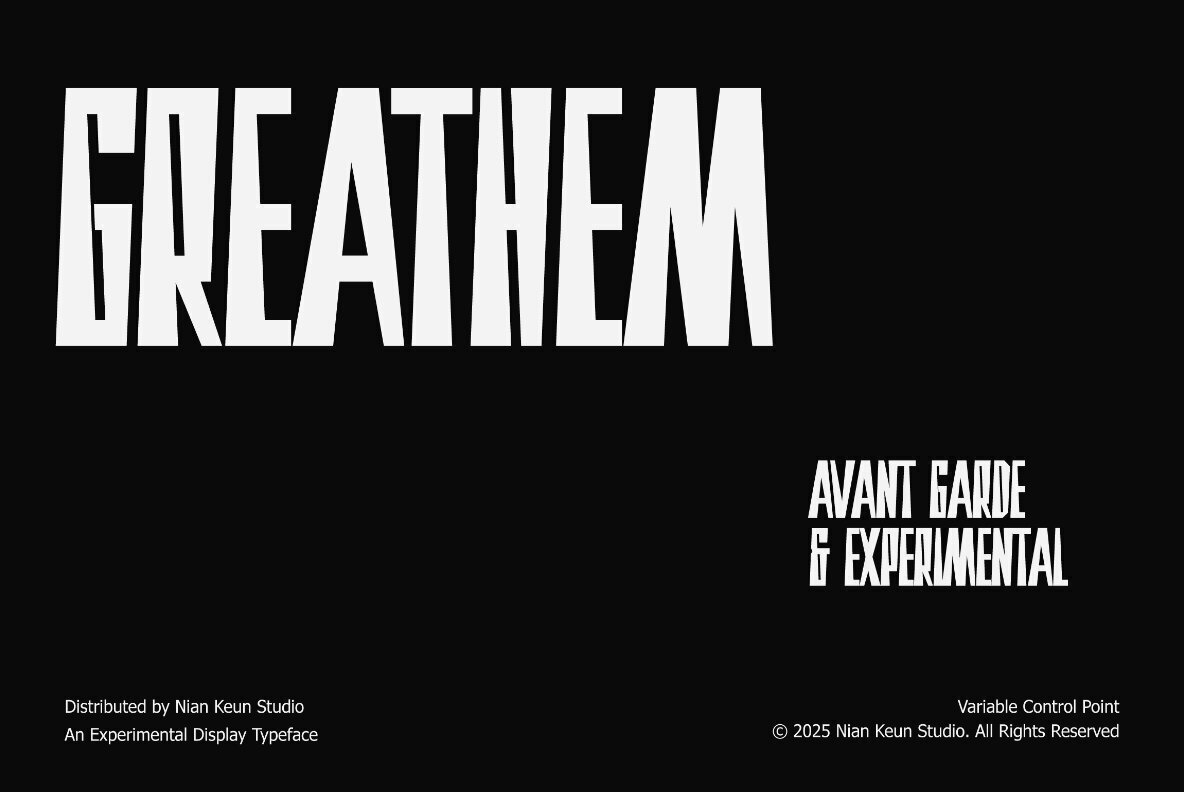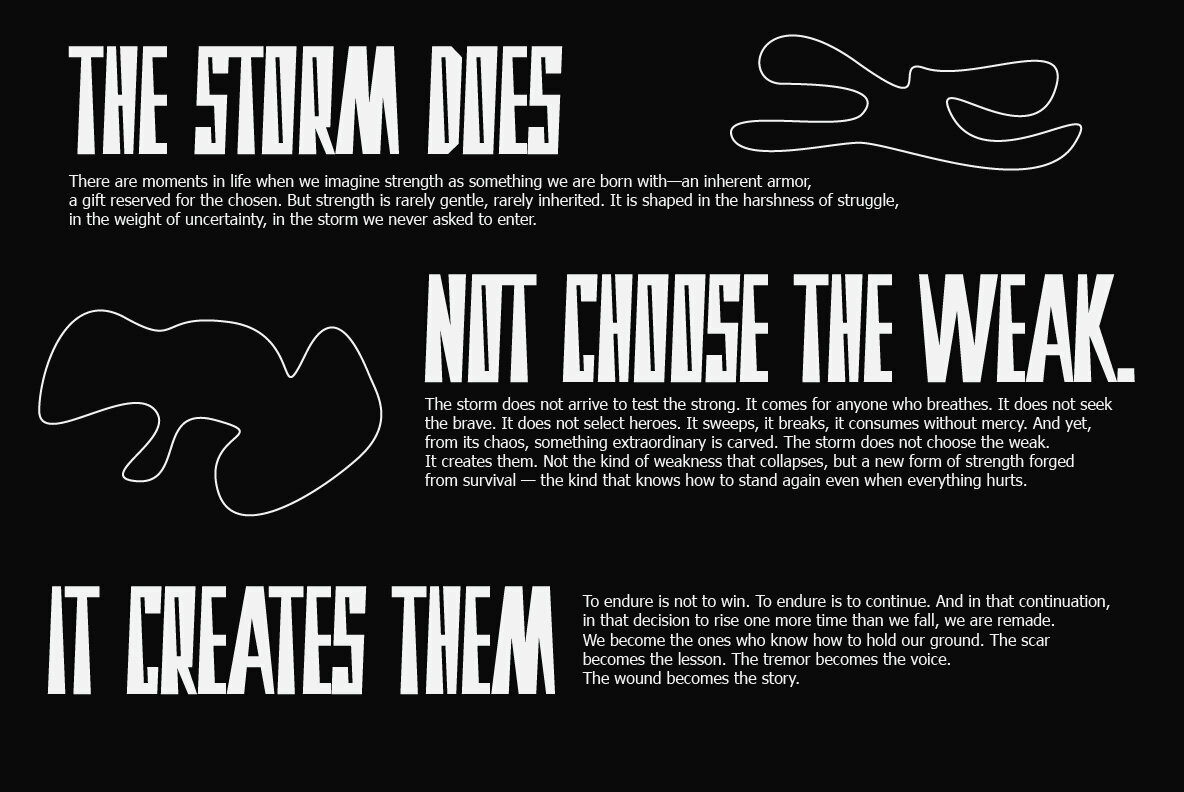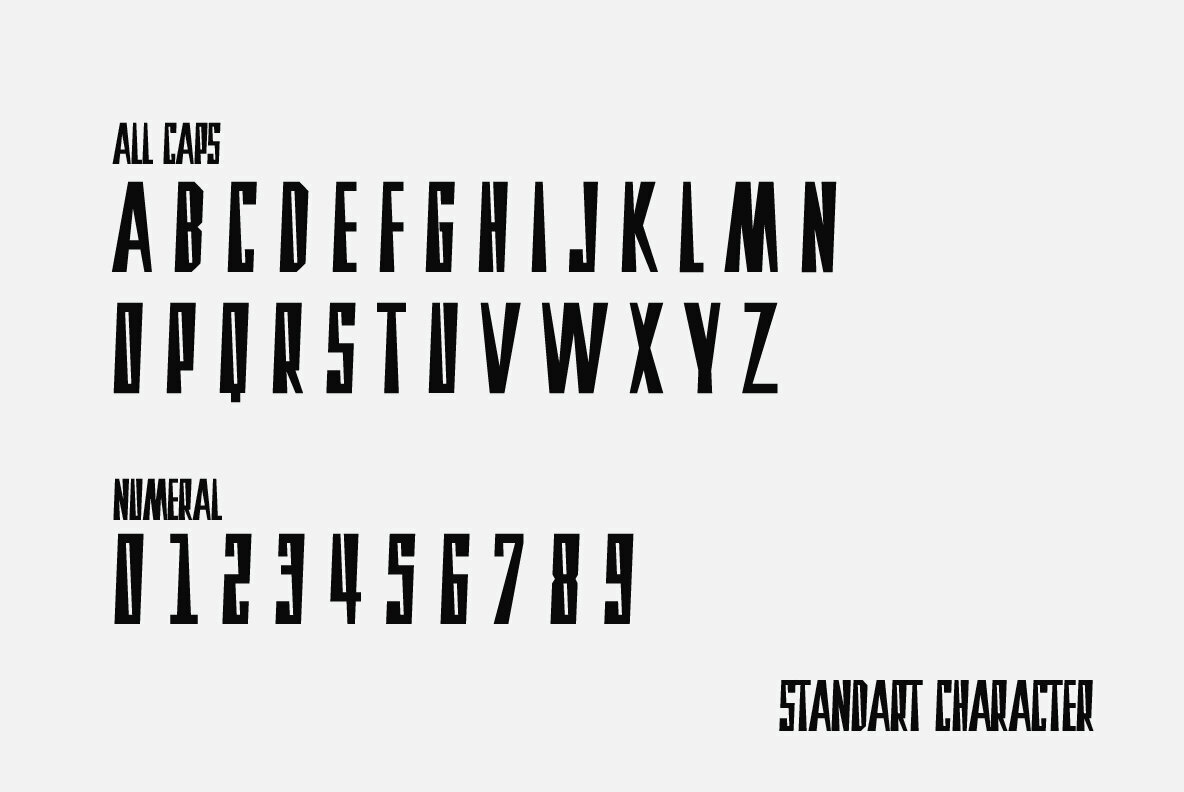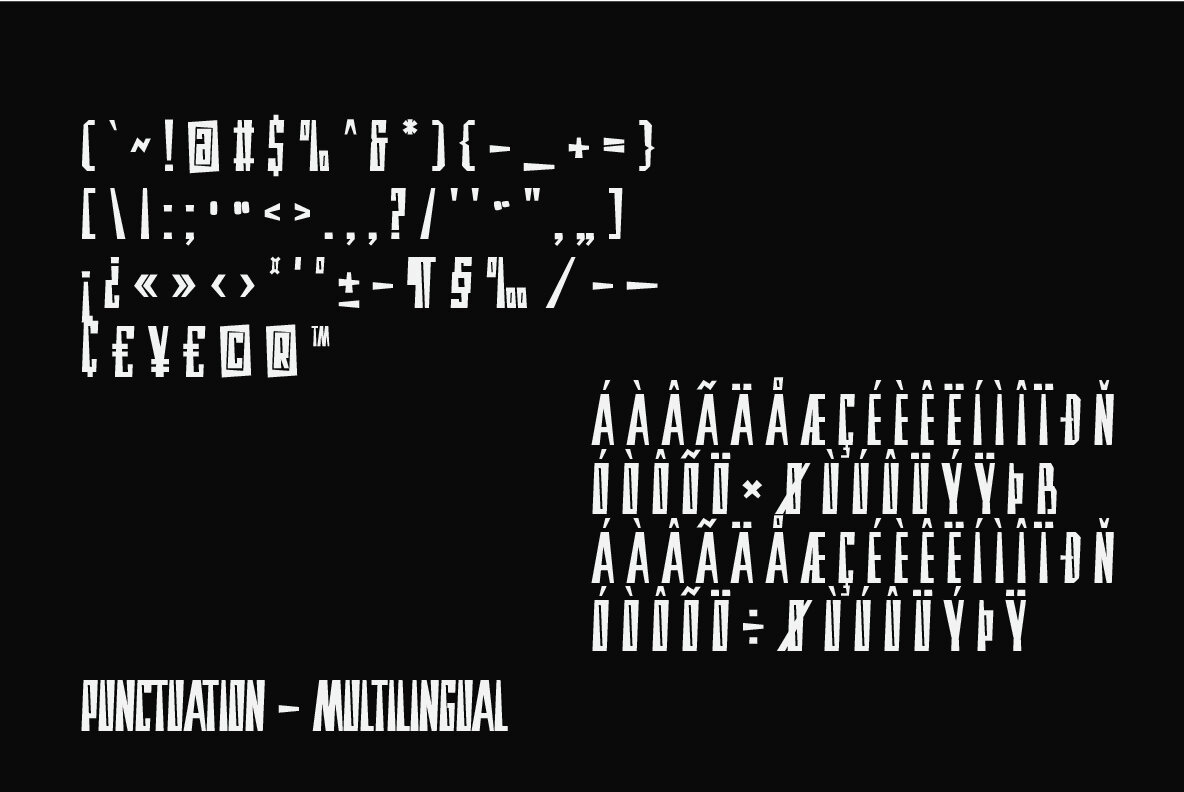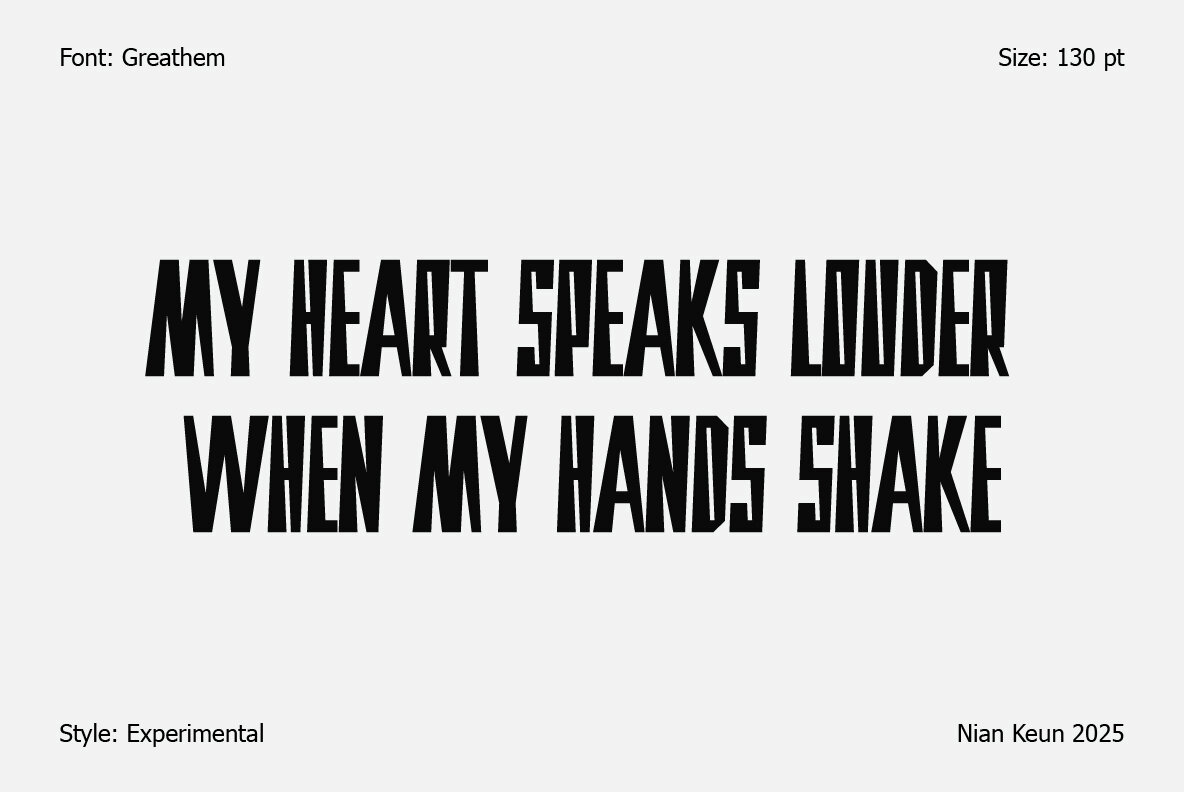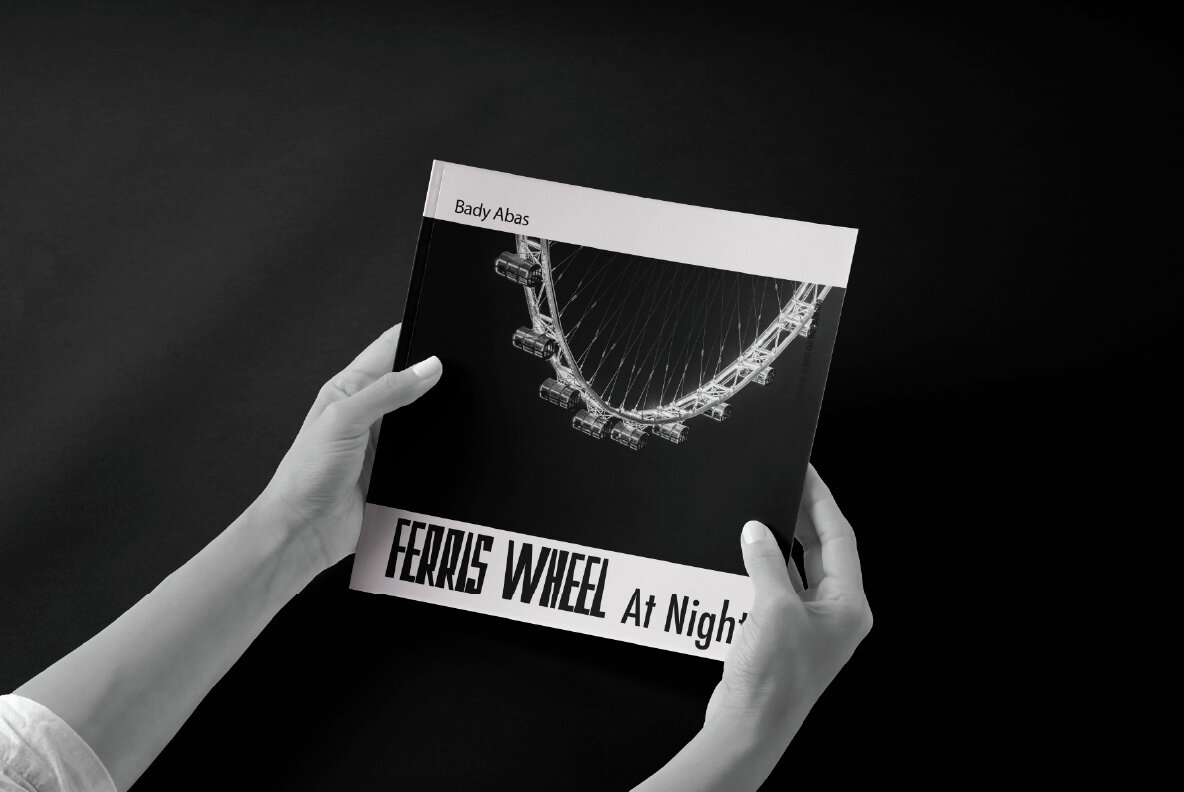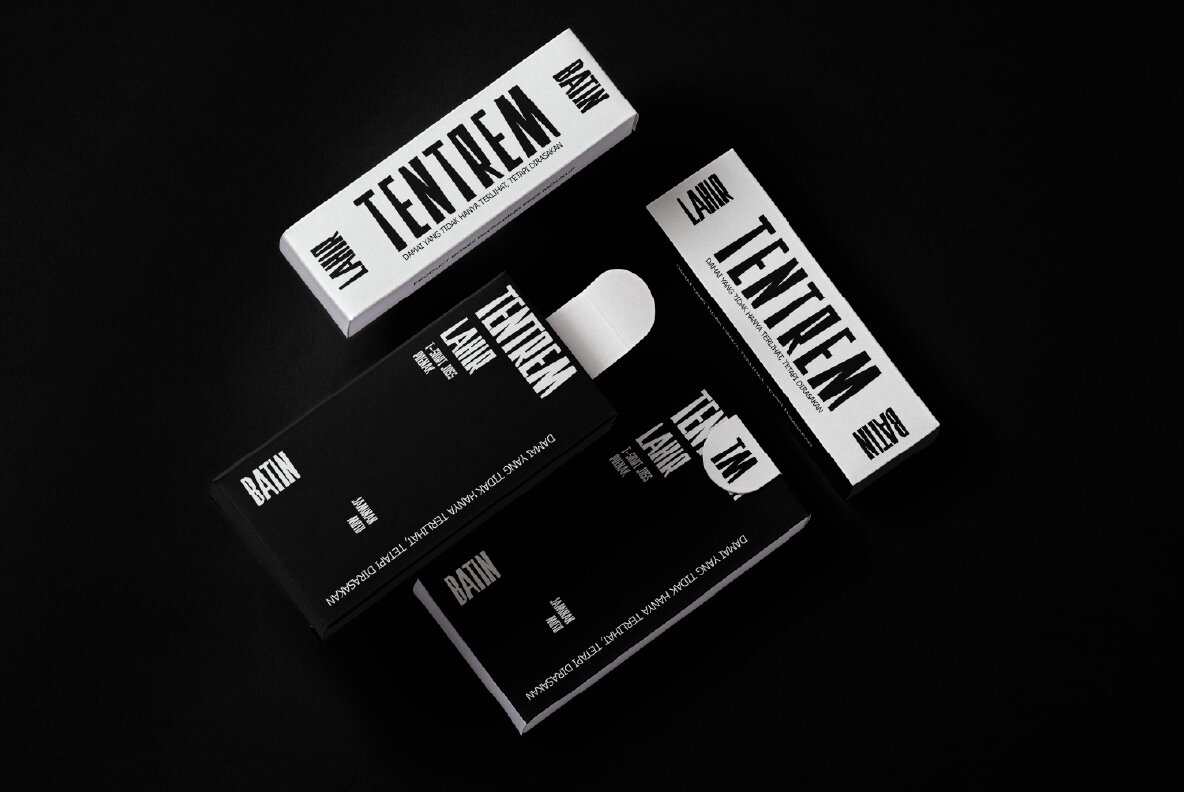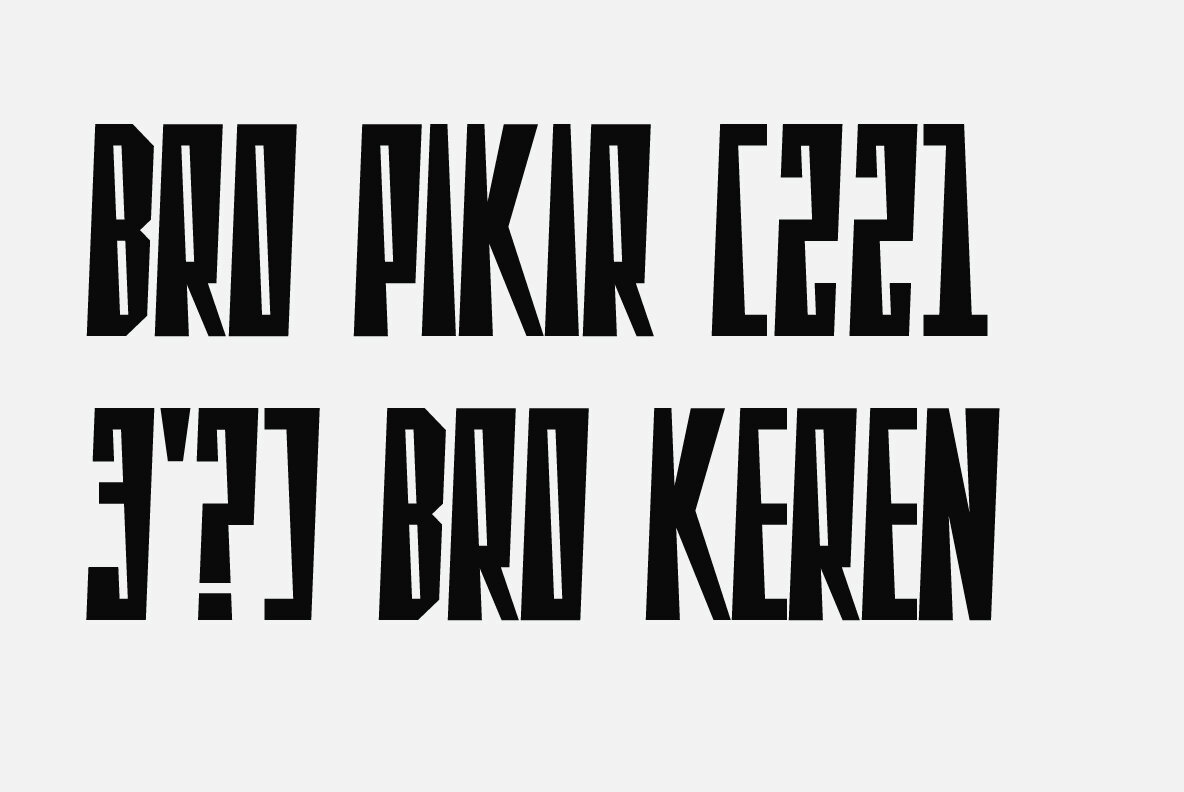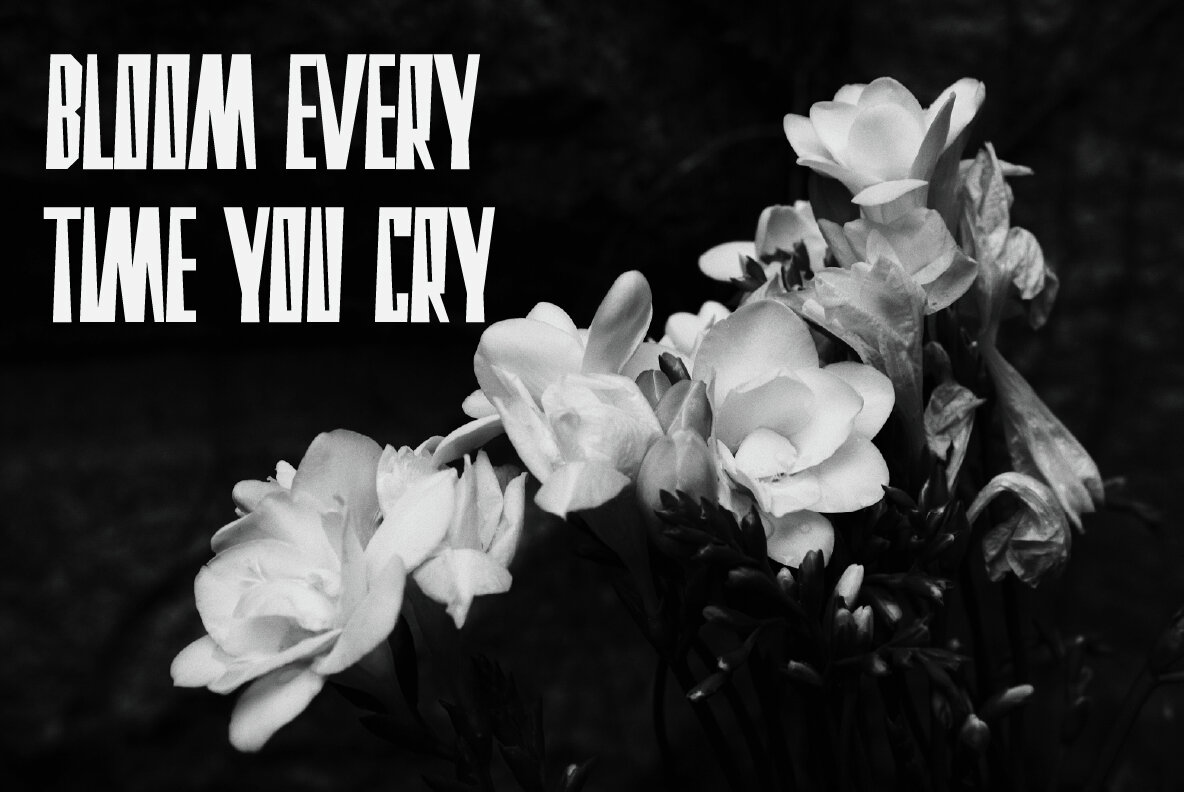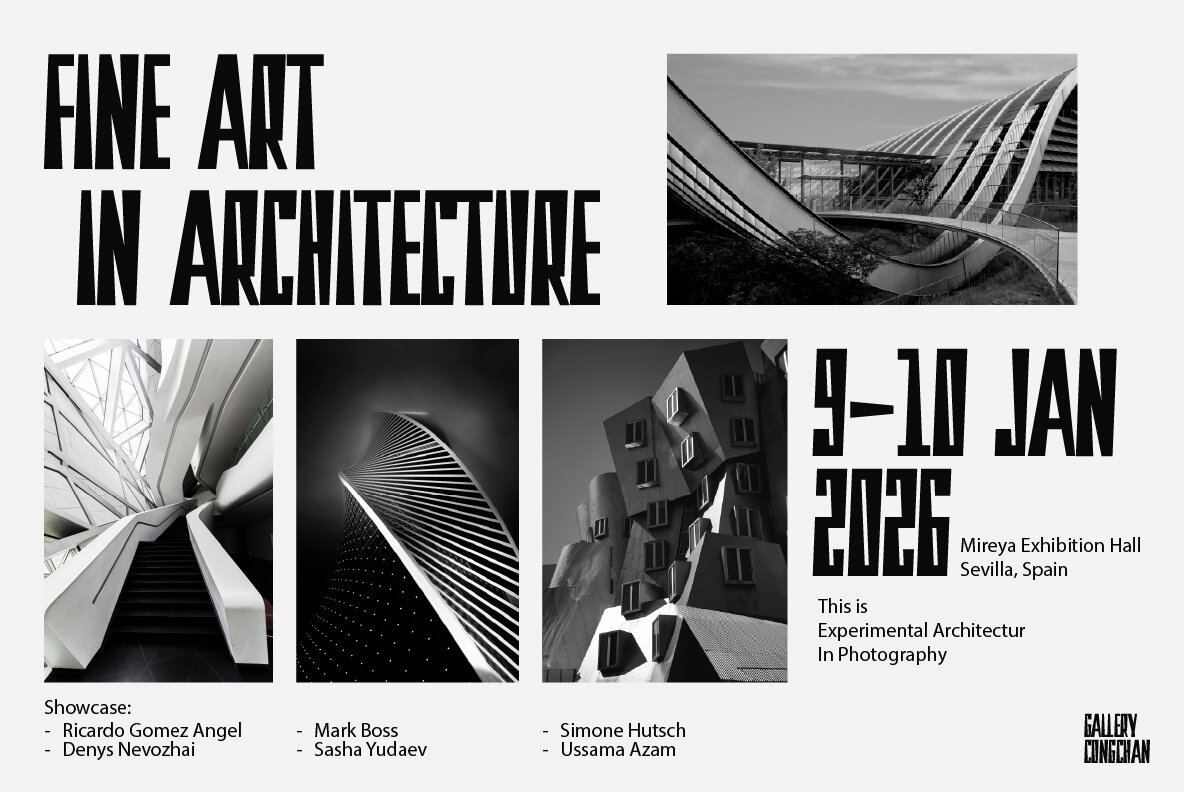
Greathem Font
Greathem
Greathem is an audacious display typeface that transcends traditional typographic boundaries. Its extreme vertical tension, coupled with sharp geometric shapes, ensures that Greathem dominates the visual landscape wherever it is featured. Designed with projects that demand attention in mind, this typeface is ideal for headline-grabbing aesthetics. Its design ethos channels the raw, expressive energy of underground posters and avant-garde brand identities. The elongated and stretched forms enhance the font's dramatic flair, making Greathem a striking choice for those willing to step outside the ordinary and embrace modern brutalism.Greathem: A Bold Display Typeface with Exceptional Drama